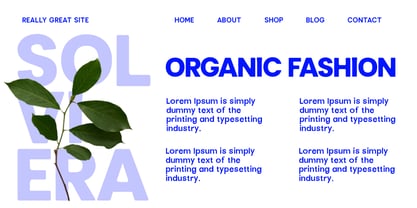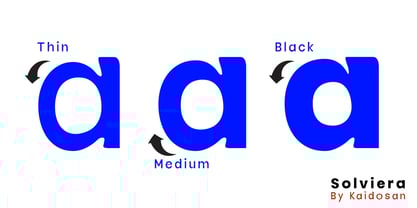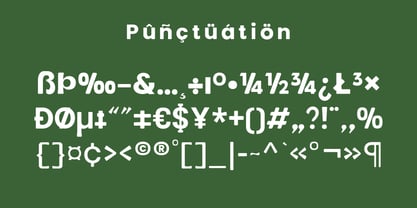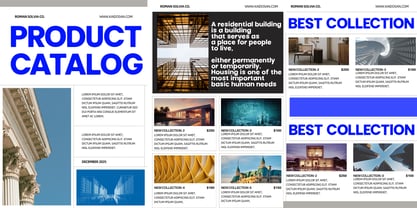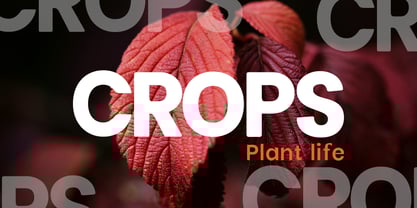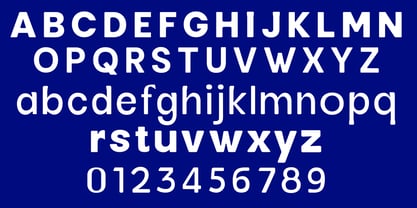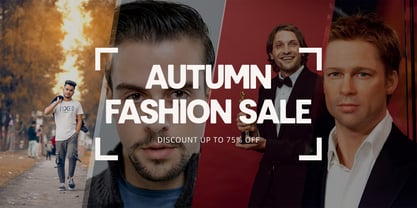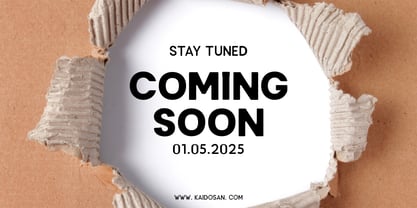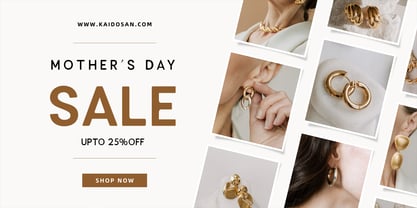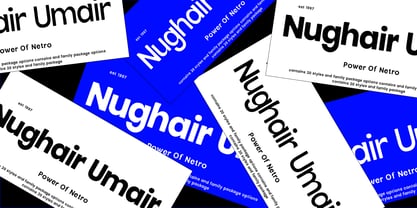
Solviera
por Kaidosan
La familia tipográfica Solviera fue diseñada por Muhammad Ansari y publicada por Kaidosan. Solviera contiene 18 estilos y opciones de paquete familiar. Más información sobre esta familia
Designed for maximum versatility, Solviera is a sans-serif font that can be adapted to a variety of design styles. Its clean and minimalist design makes it a great choice for creating a modern and professional look. Whether you're designing a website, a mobile app, or a print document, Solviera will help you create a visually appealing and easy-to-read design.
Diseñadores: Muhammad Ansari
Fundición: Kaidosan